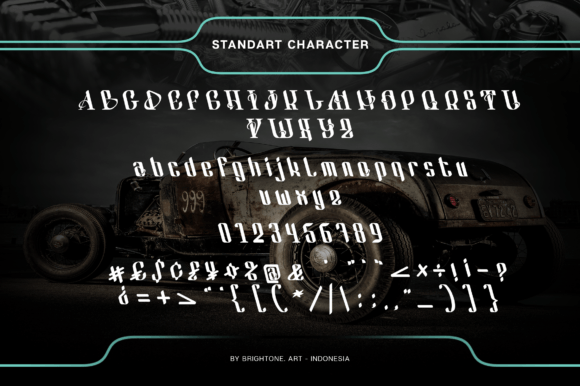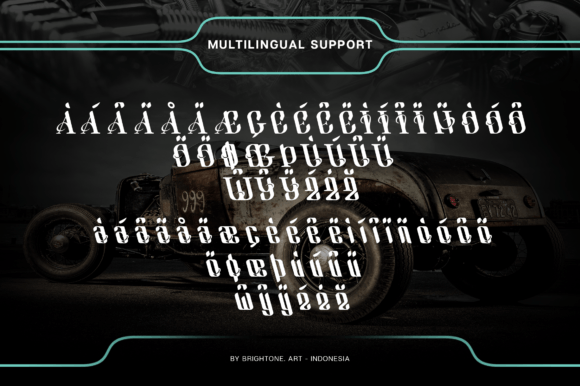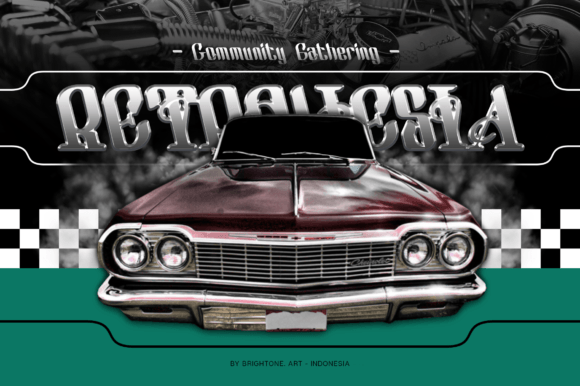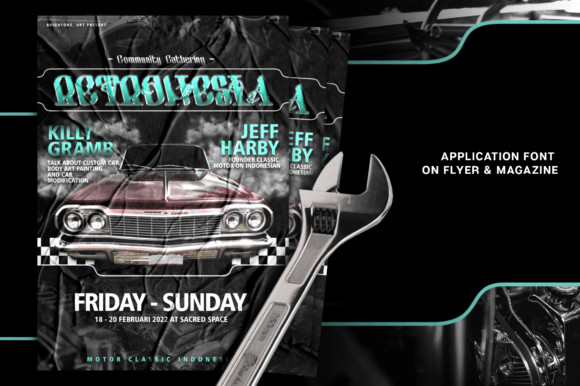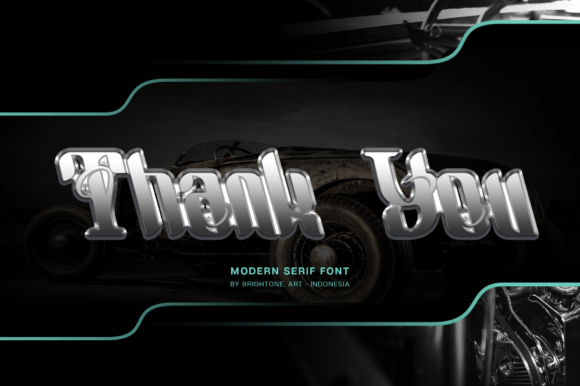
Slatern Font – Free Download
Introduction to Slatern Font
Slatern is a modern decorative font with a reverse italic style suitable for all your logo lettering, logos, labels, packaging, stickers, and branding purposes.
Key Features of Slatern Font